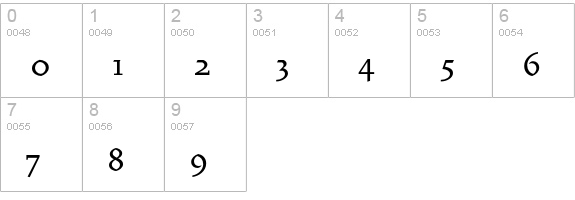
VendettaMedium Font Details
VendettaMedium font is a stunning typeface that exudes sophistication and elegance. With its sleek and modern design, it is perfect for a wide range of creative projects, from logos and branding to headlines and invitations. This font features a balanced combination of sharp lines and subtle curves, creating a harmonious visual appeal that is both eye-catching and easy to read. Its medium weight strikes the perfect balance between boldness and subtlety, making it versatile for various design applications. VendettaMedium is freely available to download at FontsMarket.com. This means that you can easily access and use this incredible font without any restrictions. Whether you are a professional designer or a DIY enthusiast, you can now enhance your projects with this beautiful typeface, without worrying about any licensing issues. The versatility of VendettaMedium font allows it to seamlessly adapt to various design styles and themes. It can add a touch of sophistication to a corporate logo, bring elegance to a wedding invitation, or even lend a modern edge to a fashion magazine layout. With its wide range of characters and support for multiple languages, VendettaMedium font ensures that your message can be effectively communicated to a diverse audience. Its clean and legible letterforms make it easy to read both in print and on digital platforms, ensuring that your designs are visually appealing and accessible. Don't miss out on the opportunity to elevate your design projects with VendettaMedium font. Download it for free at FontsMarket.com and unleash your creativity with this stunning typeface.